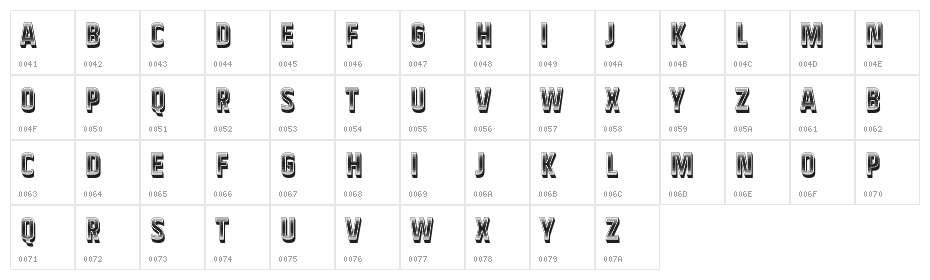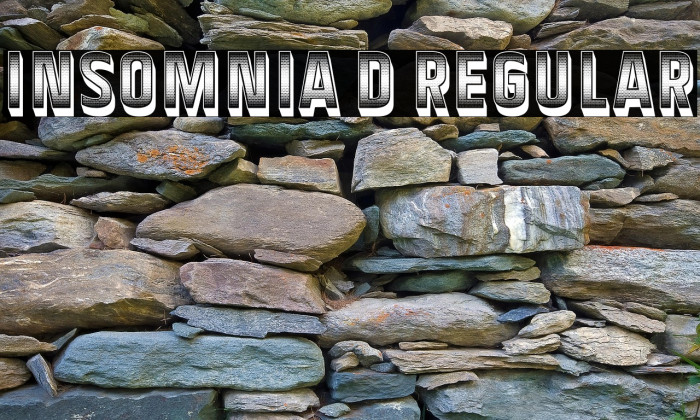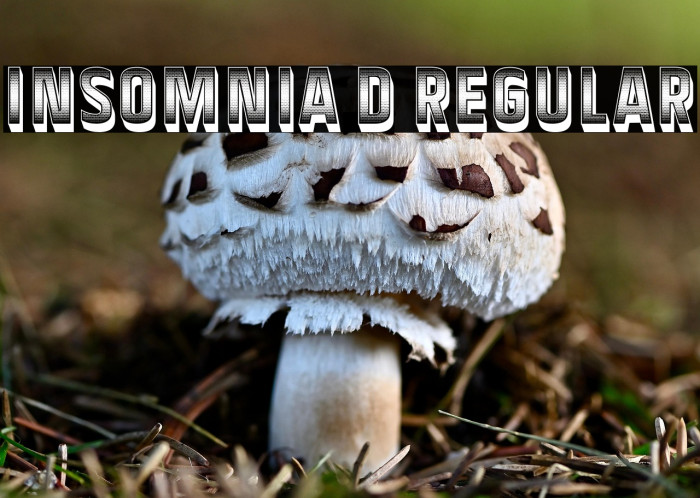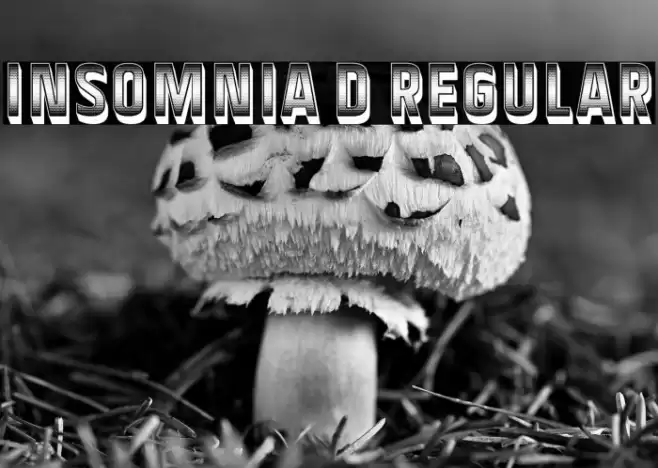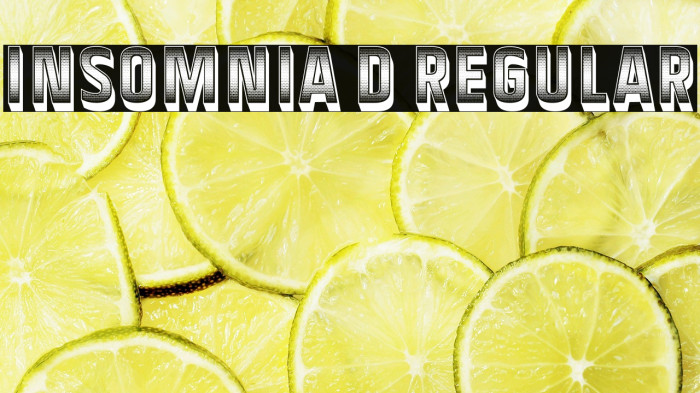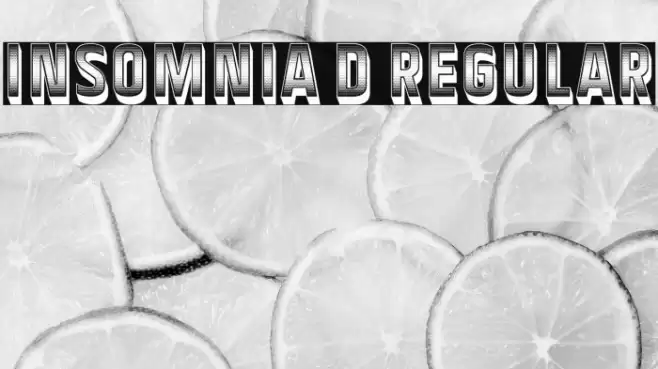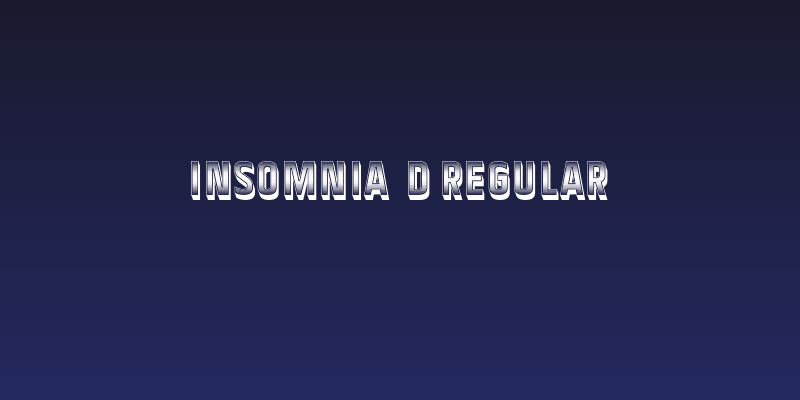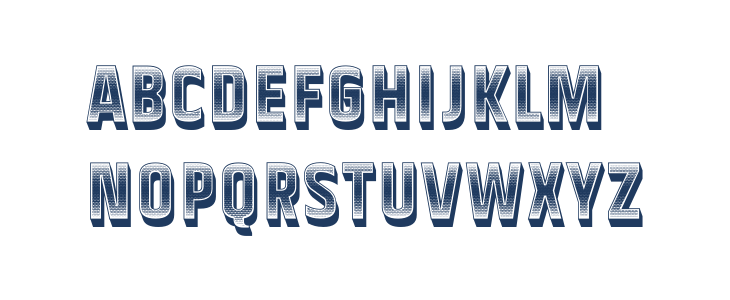
Insomnia 3D Regular Font
Insomnia 3D Regular Description
This font features a bold, three-dimensional design with a strong presence. Each character is crafted with a shadow effect that gives it depth and a sense of solidity. The letters are uppercase and have a consistent, blocky structure with a dotted texture that adds an element of visual interest. The font's style is reminiscent of vintage poster typography, making it ideal for creating impactful headlines or titles. Its boldness and unique 3D effect make it stand out, ensuring that any text set in this font will capture attention.